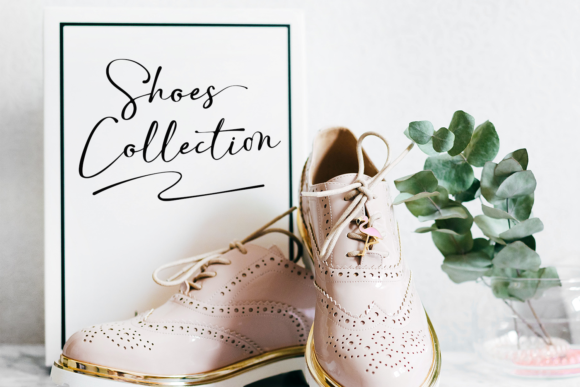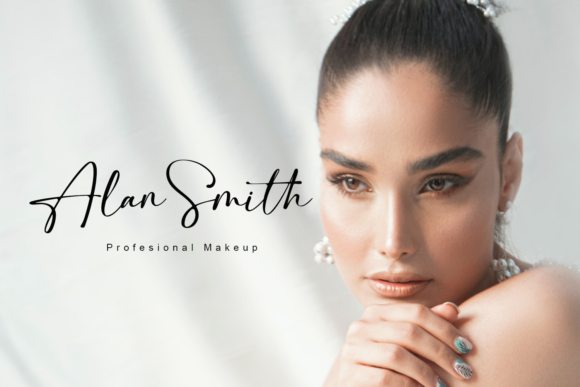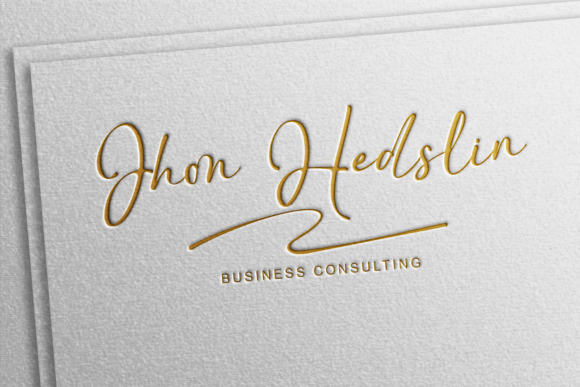
Weatsyam Font
About Weatsyam Font
“Weatsyam is a unique and elegant handwritten font. It looks beautiful on a variety of designs requiring a personalized style, such as wedding invitations, thank you cards, weddings, greeting cards, logos, and so on. Weatsyam is PUA encoded, which means you can access all of the amazing glyphs and ligatures with ease!”